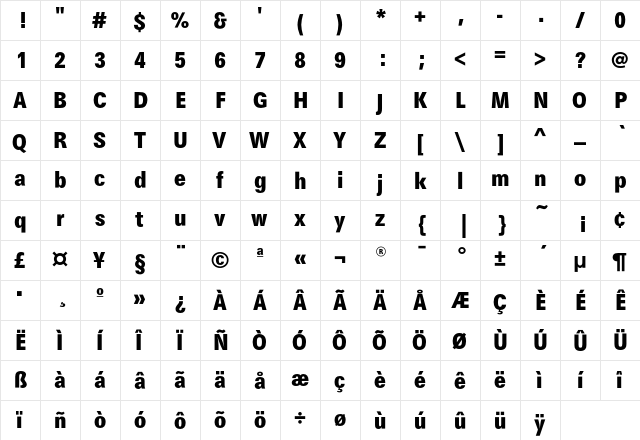
MaximaEF-BoldCondensed Regular
Design Context for MaximaEF-BoldCondensed Typeface
MaximaEF-BoldCondensed offers clean, dependable letterforms without strong stylistic allegiance, making it a practical choice for designers who need flexibility. The heavy weight commands attention and anchors typographic hierarchies. Its narrow stance lets it pack a punch even in space-constrained designs.